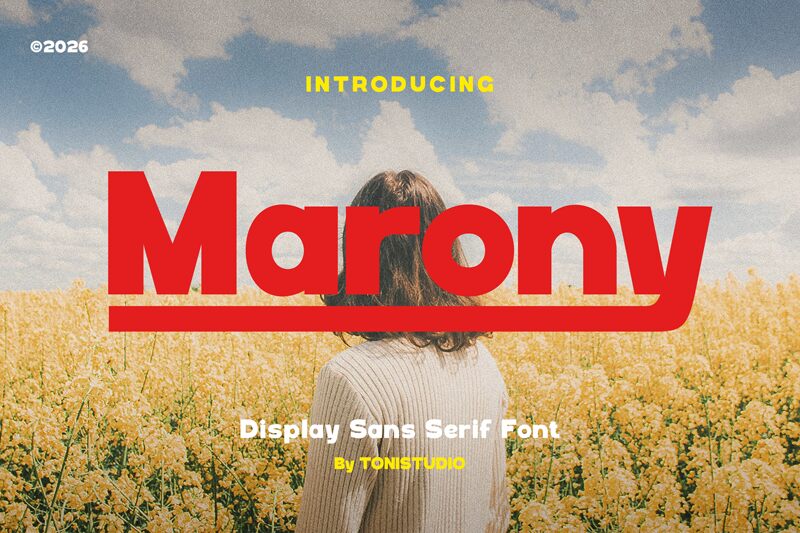
Marony font by Toni Studio is a free sans serif font typeface with big, inky geometry and a friendly confidence. The strokes feel thick and steady, with smooth curves that keep it approachable while the tight, blocky rhythm gives it real punch. It reads fast, looks modern, and holds its shape even when you crank the size up.
Using Marony, you’ll get bold clarity for logos, app headers, product packaging, social posts, poster titles, and storefront signage, plus punchy merch graphics. This free font also plays nicely in short taglines and badges where you need instant impact without fuss. Pair Marony with a light, neutral sans for body copy, and give it a little extra letter spacing when setting all-caps titles.